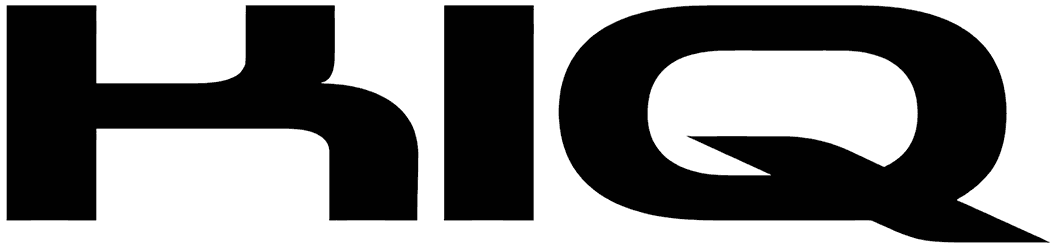
KIQ Font
KIQ is a techno font that comes with rounded edges and clean shapes, thus carrying a vibe of modernity, dynamism, professionalism, and sincerity.
Aside from not fully supporting numbers, it looks insanely ideal for movie posters, video game brochures, logos, menus, or social media posts. Just in case you are looking for another futuristic font, the same as this one, don’t hesitate to visit our rich archive.